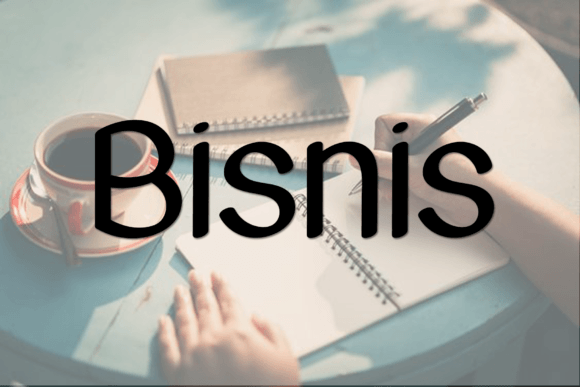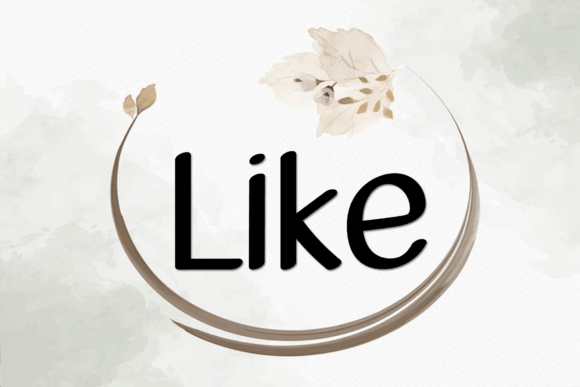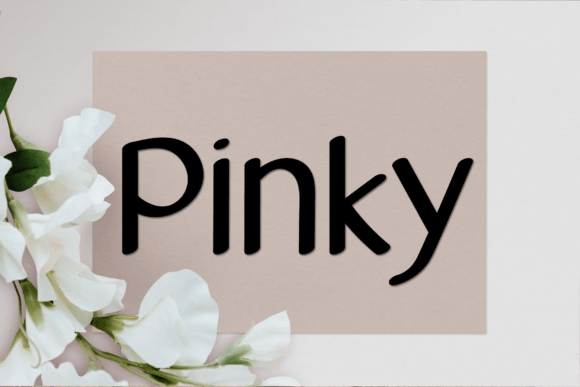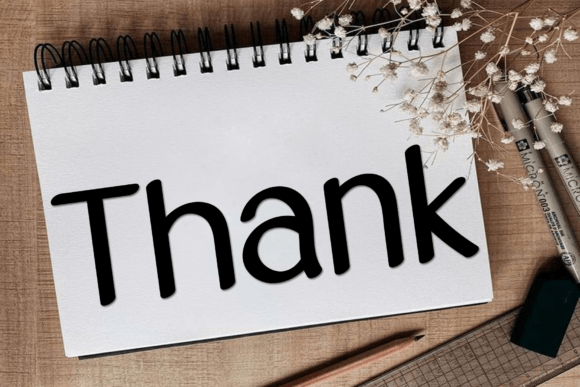
About Writing Font
Writing Font is a classic and simple handwritten typeface created with a random, freestyle approach. Its natural and relaxed style makes it highly versatile for various creative projects. Whether you’re designing logos, headlines, corporate or brand identities, apparel, posters, music covers, movie titles, or social media content, Writing adds an authentic and artistic touch to your work.
Classic and Freestyle Design
Writing features spontaneous, free-flowing letterforms that bring charm and personality without sacrificing clarity. Its timeless handwritten style offers warmth and approachability, making it a great fit for projects that require a personal and creative flair.
Ideal Uses for Writing Font
This font is suitable for a wide range of design applications, including:
Logos and brand identities
Headlines and editorial layouts
Corporate branding and apparel design
Posters, music, movie, and game covers
Magazines, books, comics, and cartoons
Social media content for YouTube, Instagram, and websites
Its versatility makes it perfect for many creative fields.
Why Choose Writing Font?
Designers choose Writing for its:
Classic and casual handwritten look
Freestyle, organic letterforms
Compatibility with both print and digital media
These qualities make Writing a practical and expressive font choice.
Add Authenticity and Creativity to Your Designs
Typography sets the mood and tone of your project. Writing adds a friendly and genuine vibe, helping your designs connect with your audience. Whether used for branding, editorial content, or social media, this font enhances creativity and warmth.
In summary, Writing Font is a classic and simple handwritten script with a freestyle design. Ideal for logos, branding, headlines, and more, it offers authenticity and versatility. Add Writing to your font collection to bring personality and style to your creative projects.